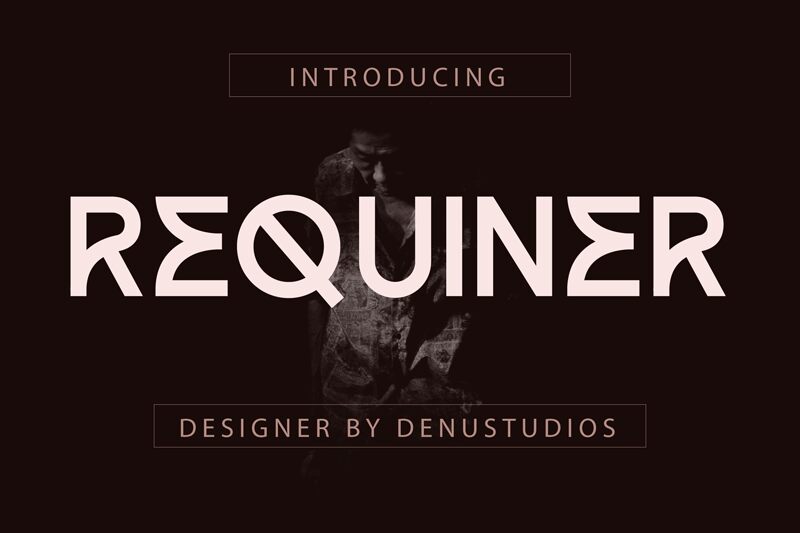
Requiner Italic font by Denustudios blends modern style with clean lines for a sleek professional finish. The free sans serif font executes a cohesive visual rhythm with smooth curves, vertical strokes, and impeccable alignment. The consistency seen throughout every character makes this typeface easy to understand hence its ability to communicate messages efficiently.
Design logotypes, general branding designs, and book/magazine covers with Requiner Italic font. Ensure professional-looking titles on posters, flyers, or digital ads without subjecting yourself to much hassle. Other areas of use suitable for this asset’s use are website design sections including landing pages or call-to-action buttons as well as application navigation sections.
Features:
- Uppercase and lowercase letters
- Numerals
- Punctuation marks (OpenType Standard)
- Accents (multilingual characters)
- Ligatures and alternative stylistic sets